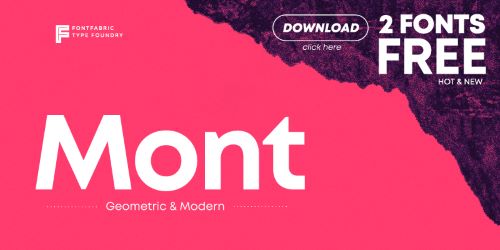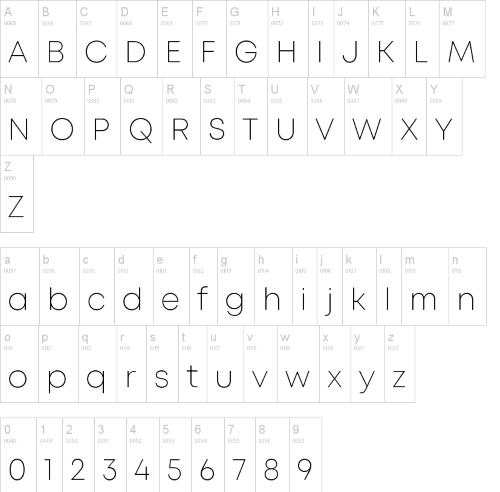
Mont Font
Mont Font is a clean, modern geometric sans-serif built for strong visual clarity and versatility. With its precise shapes, balanced proportions, and wide range of weights, Mont works beautifully in branding, headlines, logos, and digital interfaces. It delivers a polished, contemporary look that feels both professional and confidently stylish in any design.
➤ Font Name: Mont
➤ Designer: Fontfabric
➤ Style: Sans serif